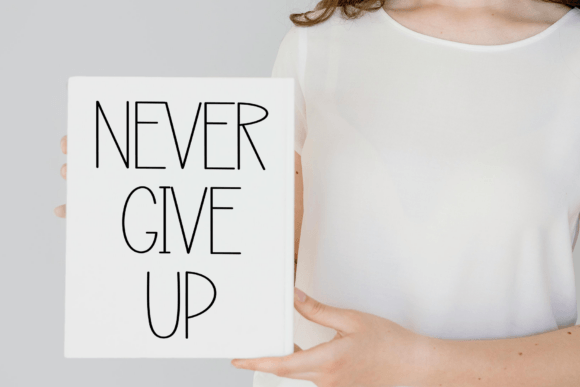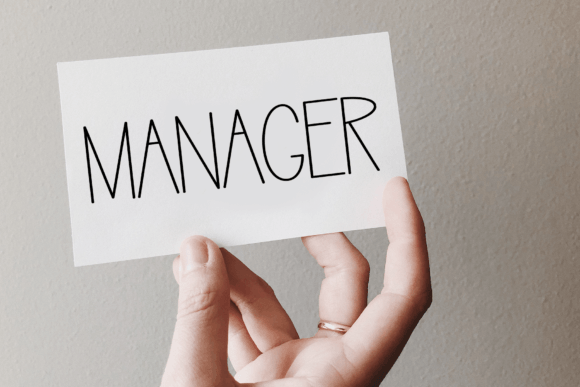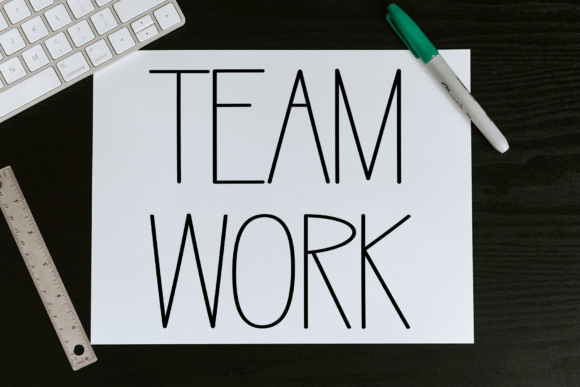
Introduction to Minimouse Font
Have you ever found yourself brainstorming a creative project in a crowded coffee shop, desperately searching for a design resource to help bring your vision to life? That was the case for many designers until the emergence of innovative display screens like the Minimouse. This slim, lightweight display screen revolutionizes the way we work on the go, providing clear visuals in a compact design that’s perfect for use on the go or in small spaces.
The Minimouse Font, a versatile and modern sans-serif font, is the perfect companion for this display screen. Its clean lines, high quality design, and transparent background make it an ideal choice for designers looking to add a touch of sophistication to their projects. With the Minimouse Font, you can elevate your designs and take your creative projects to the next level.
Whether you’re a graphic designer, UI/UX specialist, or simply a creative enthusiast, the Minimouse Font is a valuable addition to your design arsenal. And the best part? It’s available for free download, making it an accessible design resource for designers of all levels.
Key Features of Minimouse Font
- High-quality design resource ideal for creative projects requiring a unique touch.
- Transparent background option allows for seamless integration with various design elements and backgrounds.
- Designed with precision, the Minimouse Font features a clean and minimalist aesthetic, perfect for modern design projects.
Honest Review: Minimouse Font
As a designer, I’m always on the lookout for high-quality design resources to elevate my creative projects. Recently, I stumbled upon the Minimouse Font, and I must say, it’s been a delightful discovery.
Here are some aspects that work well:
- ✨ The font’s minimalist design makes it perfect for creating clean and modern typography. Its simplicity is a breath of fresh air in a world of overly complex fonts.
- ✨ The transparent background of the font makes it easy to work with, allowing for seamless integration into various design elements.
- ⚠️ While the font is modern and stylish, it may not be the best choice for projects that require a more traditional or vintage aesthetic.
Overall, I’m impressed with the Minimouse Font’s simplicity and versatility. It’s a fantastic design resource for designers looking to add a touch of modernity to their creative projects. Whether you’re working on a personal project or a commercial design, the Minimouse Font is definitely worth considering.
Tips for Getting the Most Out of Minimouse Font
For the best results, use Minimouse Font on a transparent background to create a clean and minimalist design. You can also experiment with different font sizes and colors to add visual interest to your project.
Minimouse Font is a versatile design resource that can be used in a variety of creative projects, including logos, graphics, and typography-based designs. Its high quality and free download make it an ideal choice for designers of all levels.